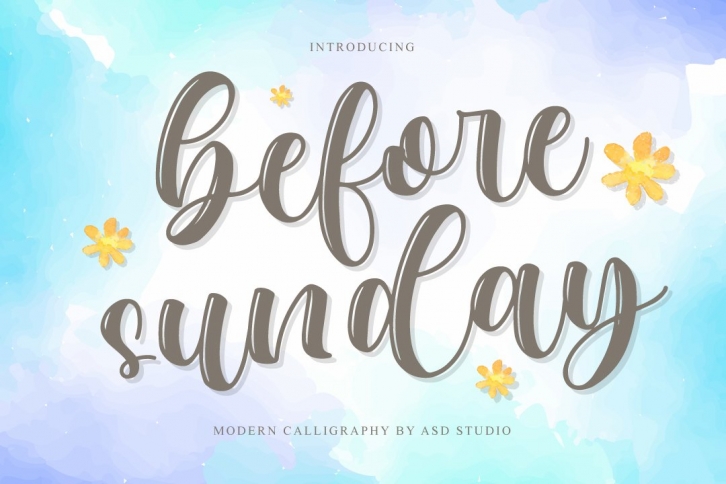
Before Sunday - Modern Calligraphy FONT Download
Before Sunday - Modern Calligraphy Font Download
Before Sunday is a beautiful font that was designed by Asd Studio. It's a great choice for designers and creatives who need such a font. It was released on August 29, 2020 and the file size is 12.50 MB. Before Sunday may give a more youthful, expressive and casual look to your project. It is a very beautiful, refined, elegant, and high-quality font.